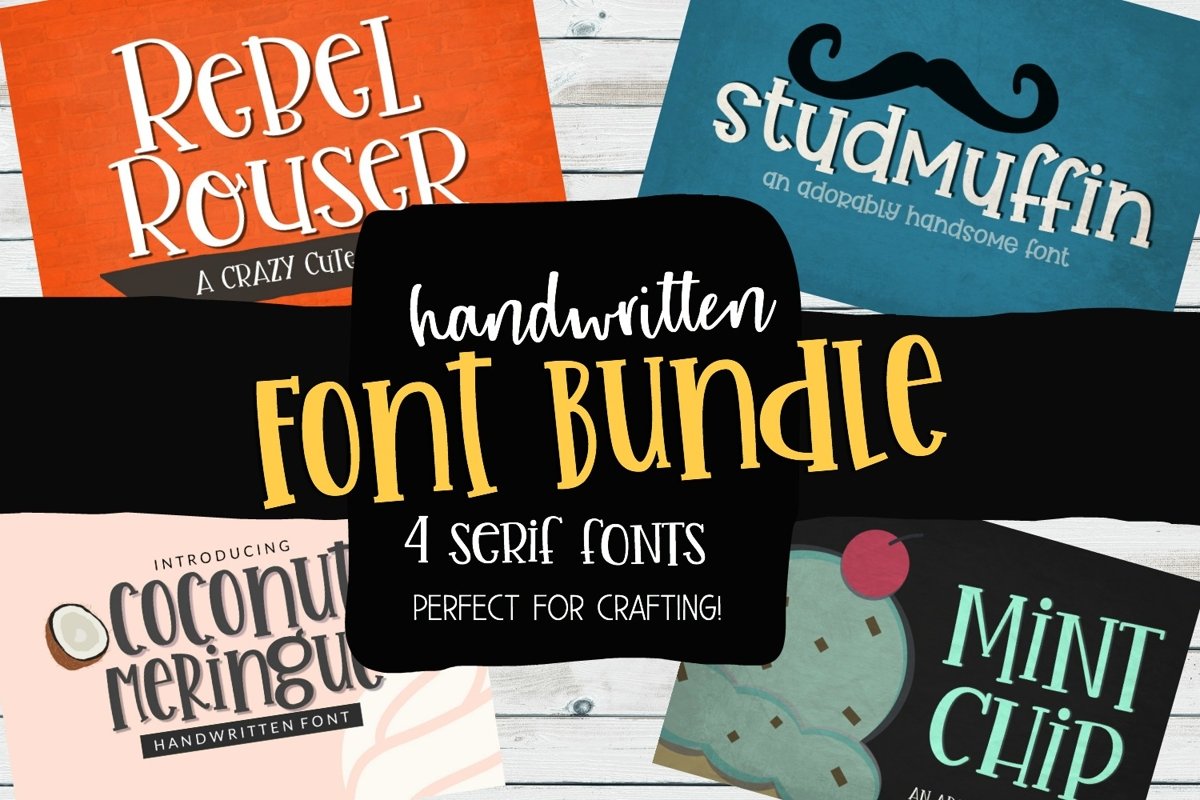
Handwritten Font Bundle - 4 Cut-friendly Fonts
This bundle features four of my best selling fonts! Each font is optimized for cutting with Cricut and Silhouette!
SS Coconut Meringue
SS Mocha Latte (regular, bold & dingbat)
SS Mint Chip
SS Wildly Sweet